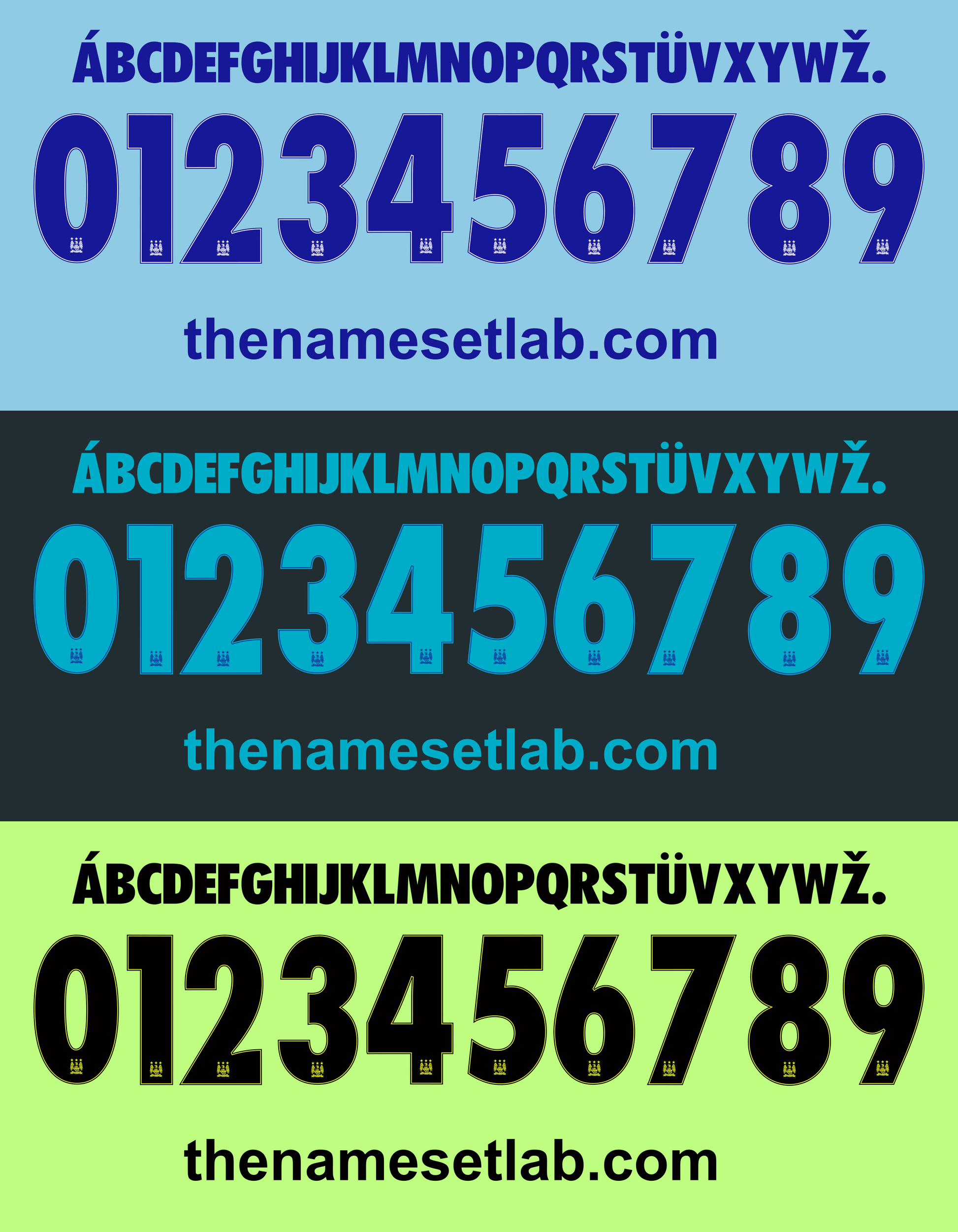
Manchester City-15-16 UCL / Cup Font Nameset AI Vector File
Download this Manchester City 2015-2016 UCL / Cup nameset as an editable .ai vector file. Styled in the 15/16 font, it’s perfect for recreating shirts from the season City reached their first Champions League semi-final and won the League Cup under Manuel Pellegrini. Ideal for custom kit projects or football memorabilia.